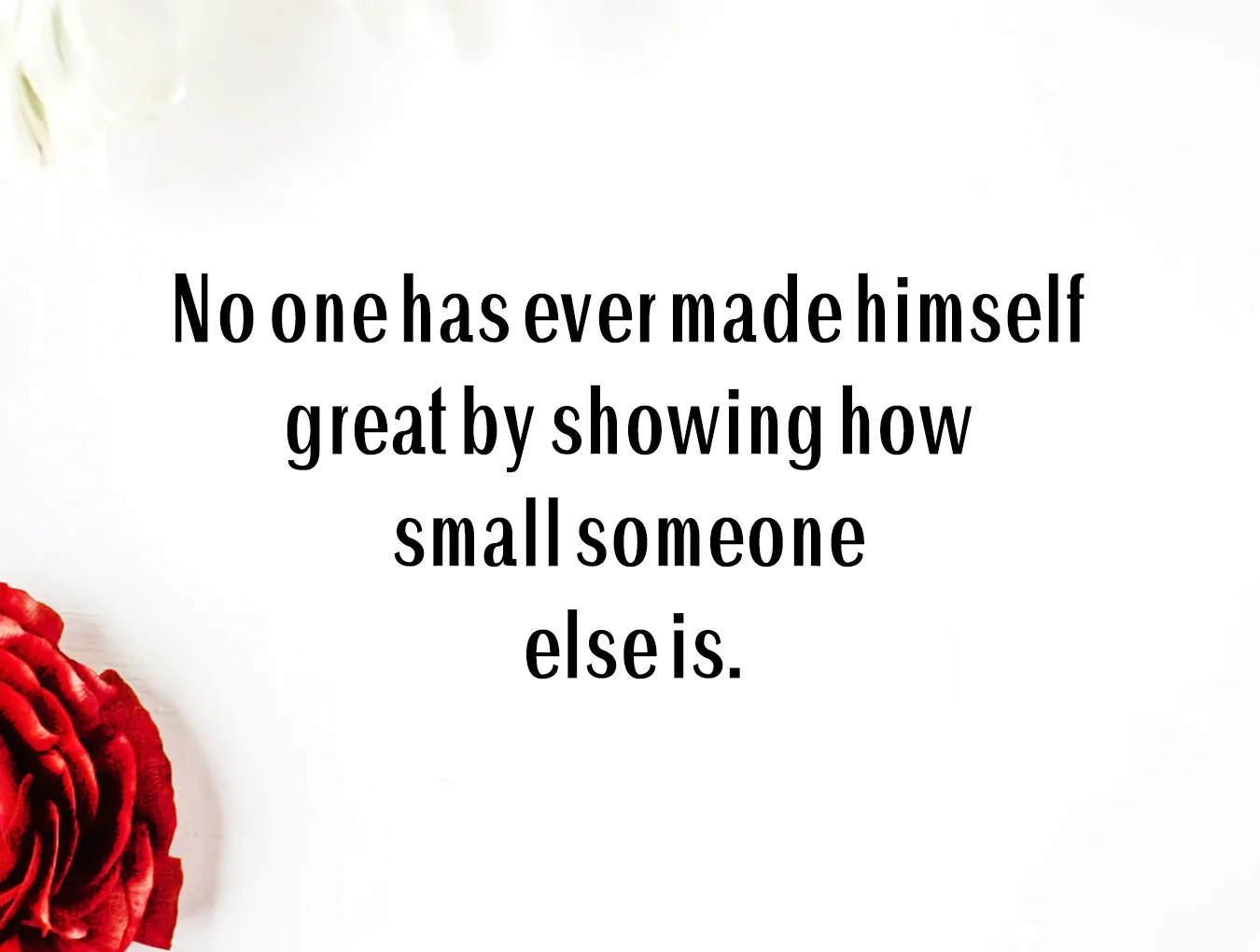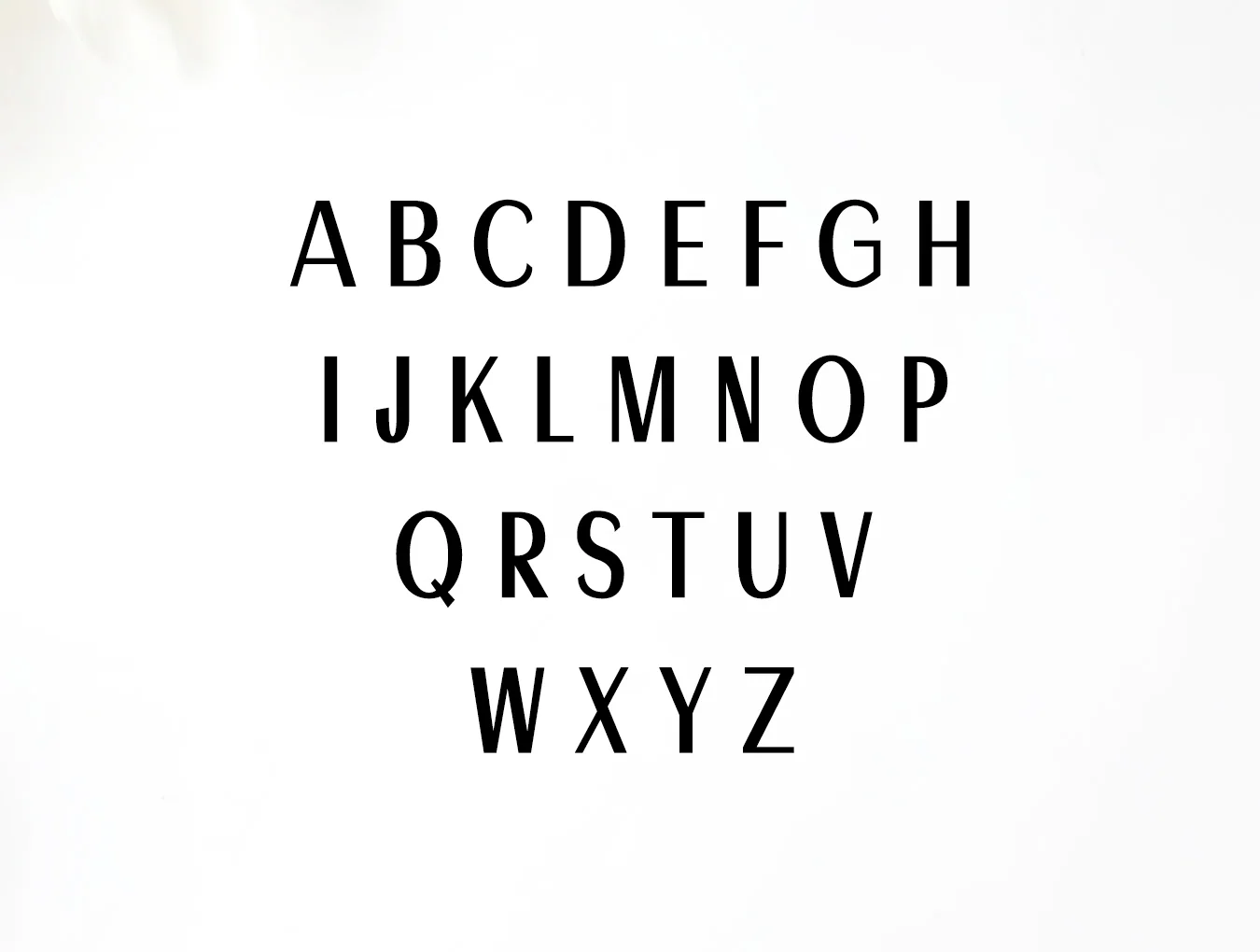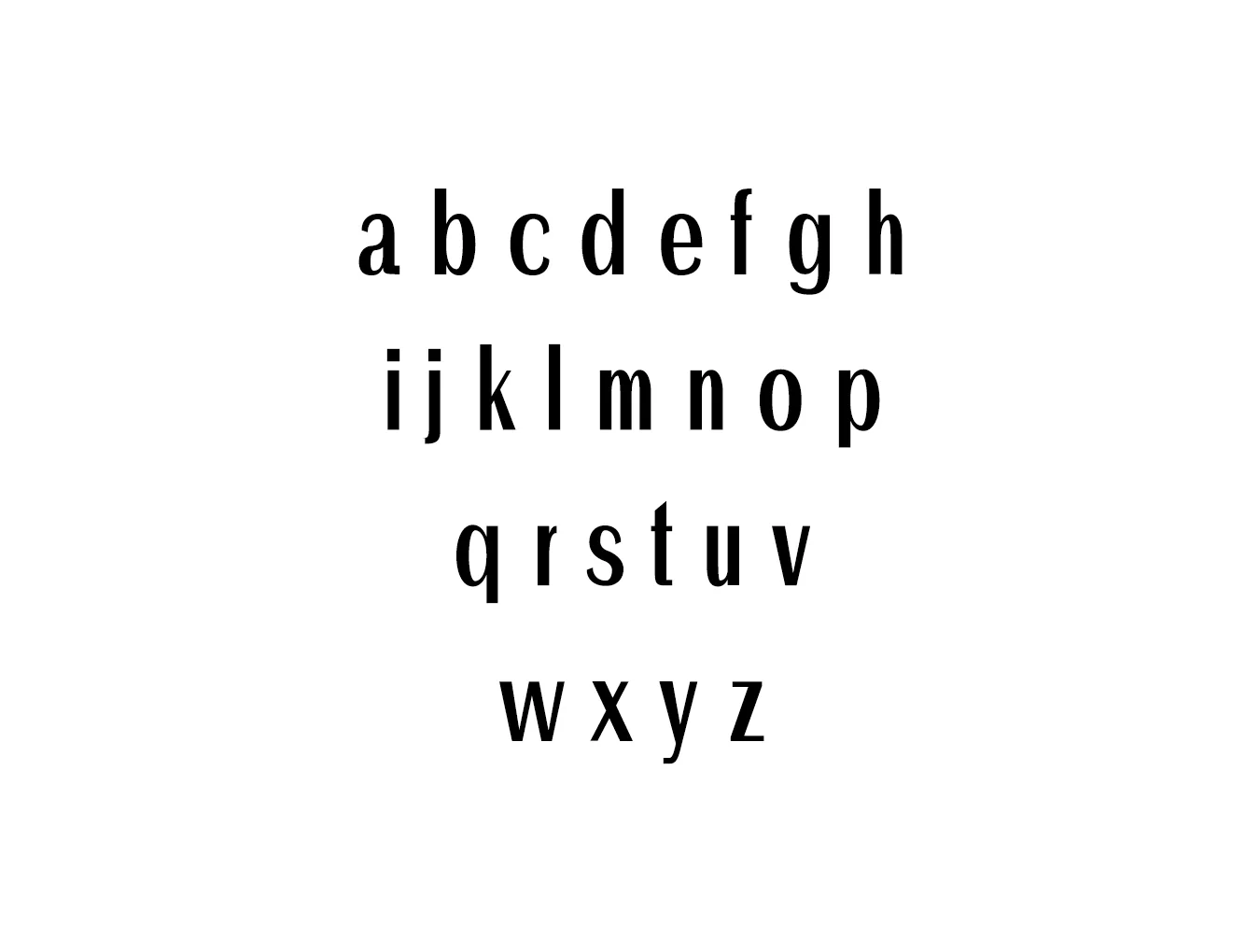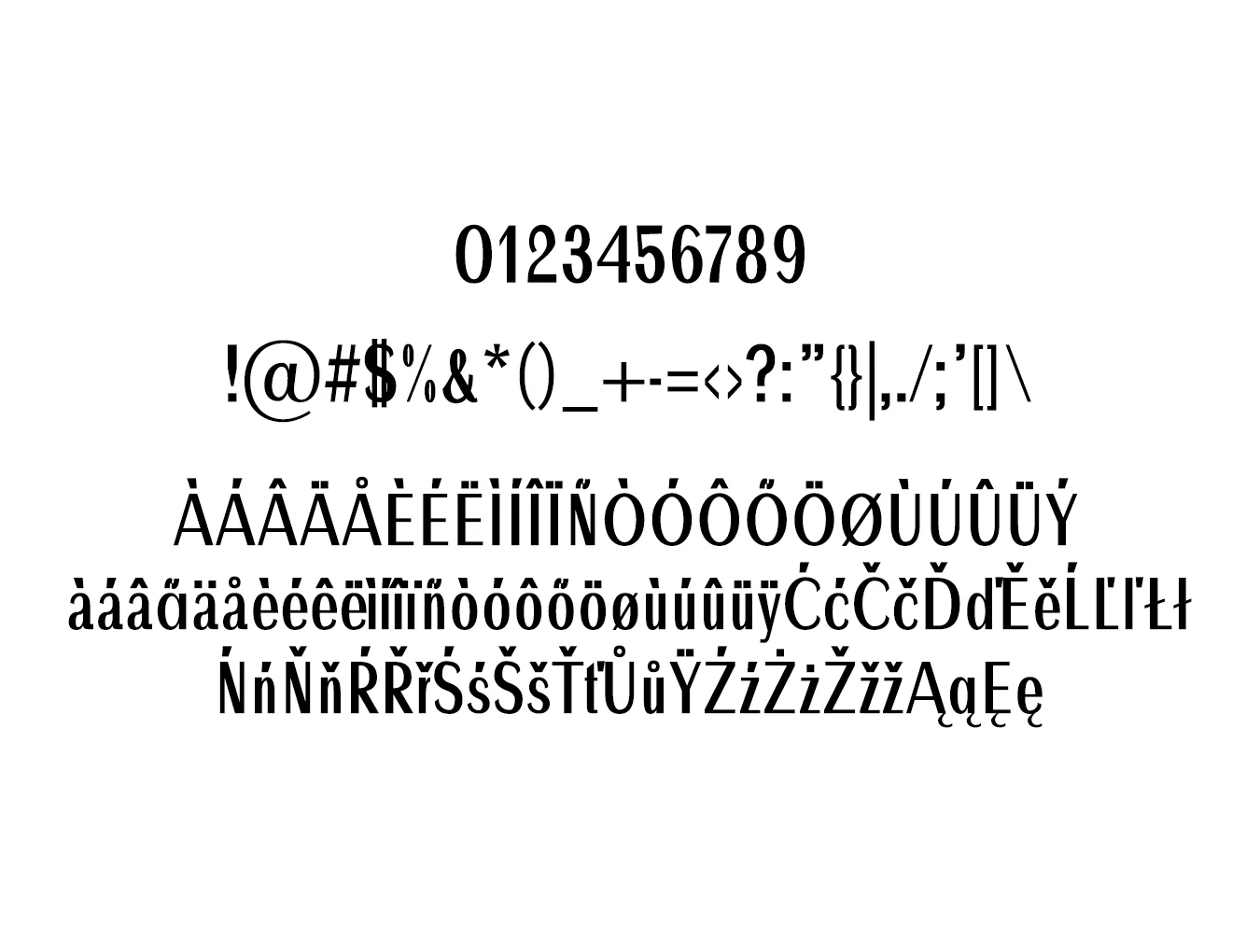
Ackley
Elegant 7-Font Sans Serif Family Bundle
294 Characters
Sans Serif Font Family
Regular, Thin, and Light Styles
Bold plus Italic Weights
Ackley Beautiful is a sleek, minimal sans serif typeface with 7 weights and a distinctive modern style. Ideal for elegant logos, headings, websites, and brand design, it shines in widely spaced all caps for a refined feel, or in mixed uppercase and lowercase for a timeless look.